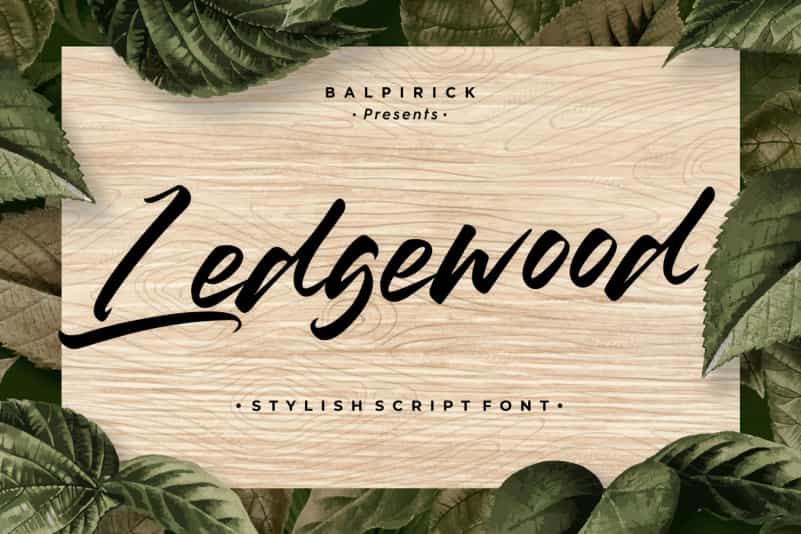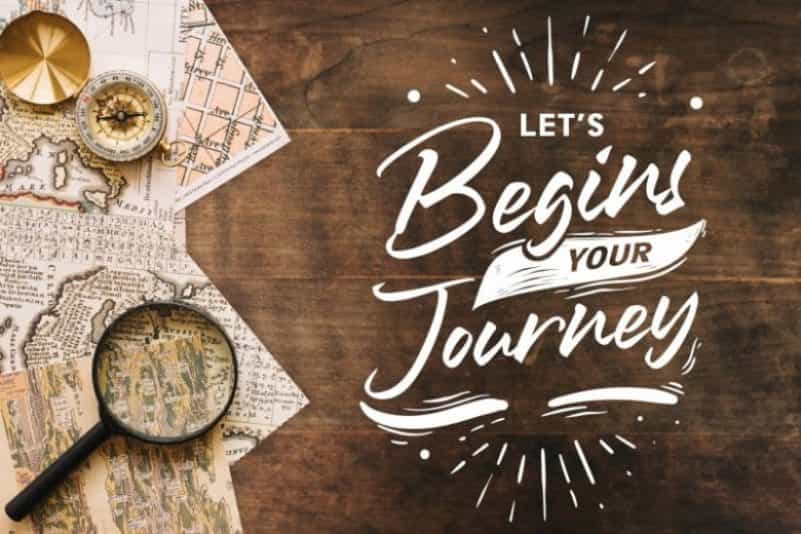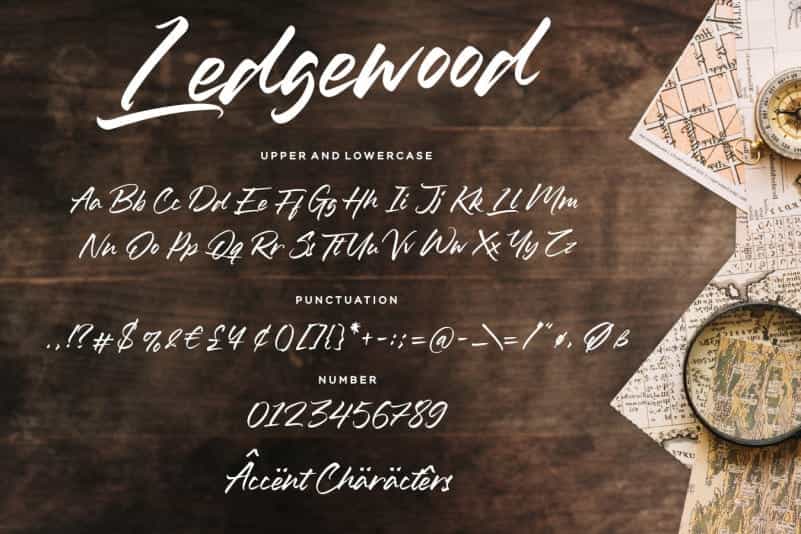
Ledgewood stands out as a stylish script font meticulously crafted to be a choice. Whether used on backgrounds or as a headline on its own this font exudes excellence in any setting!